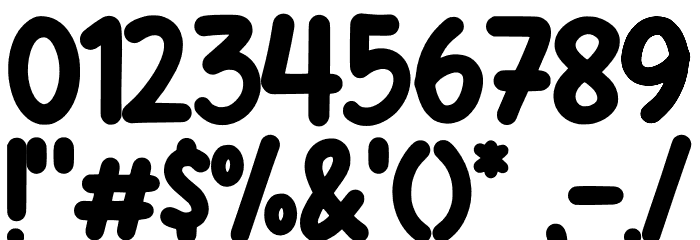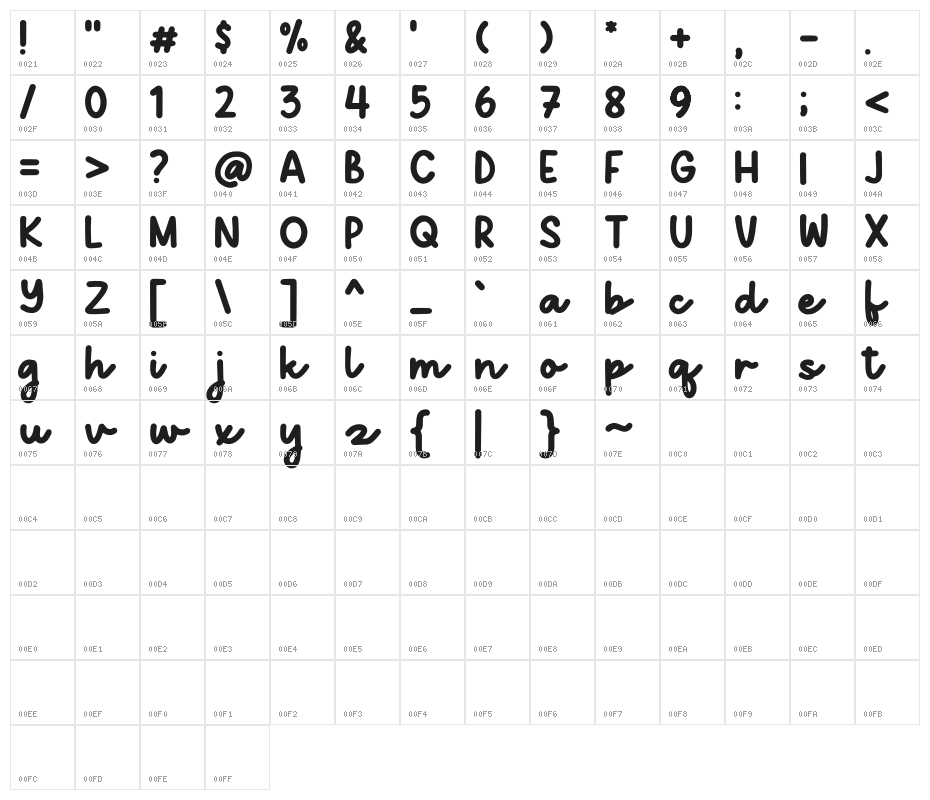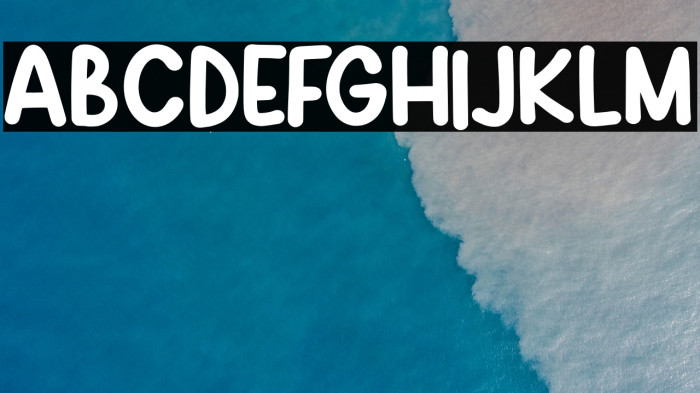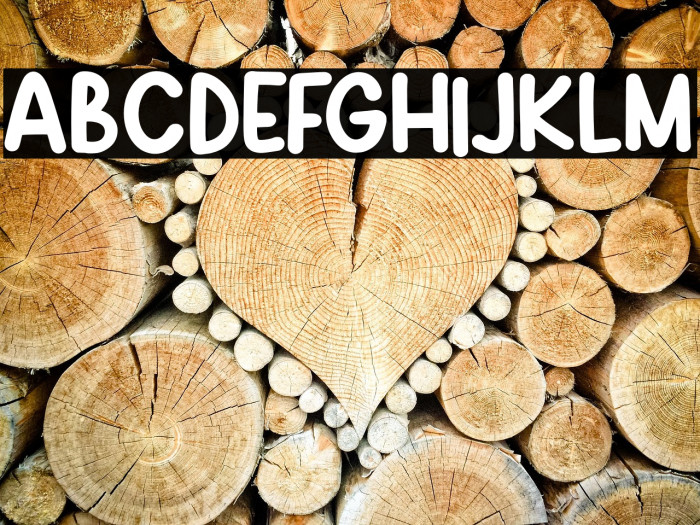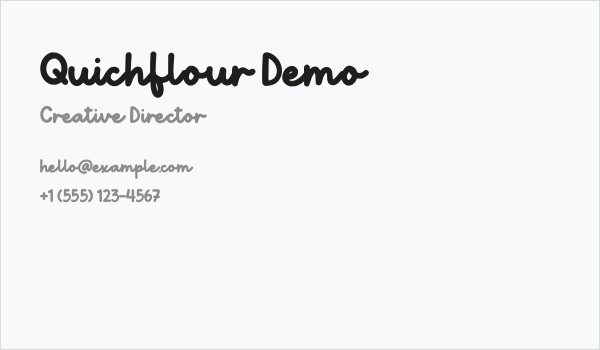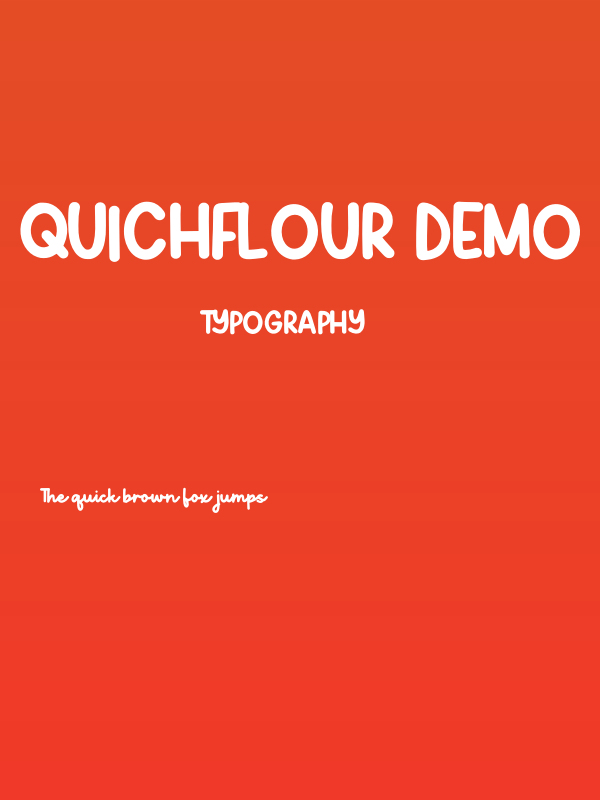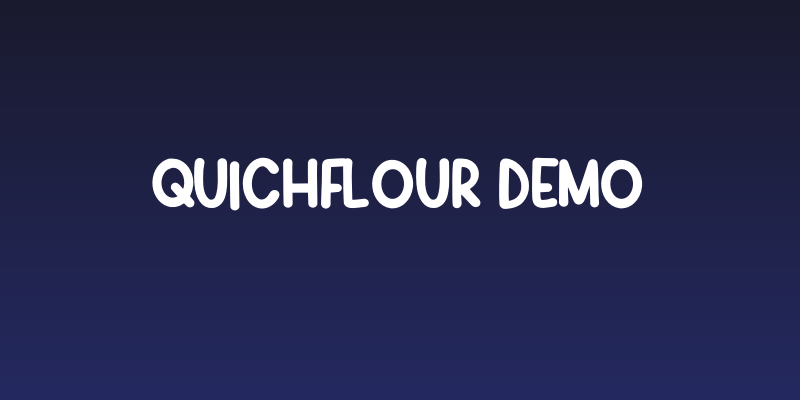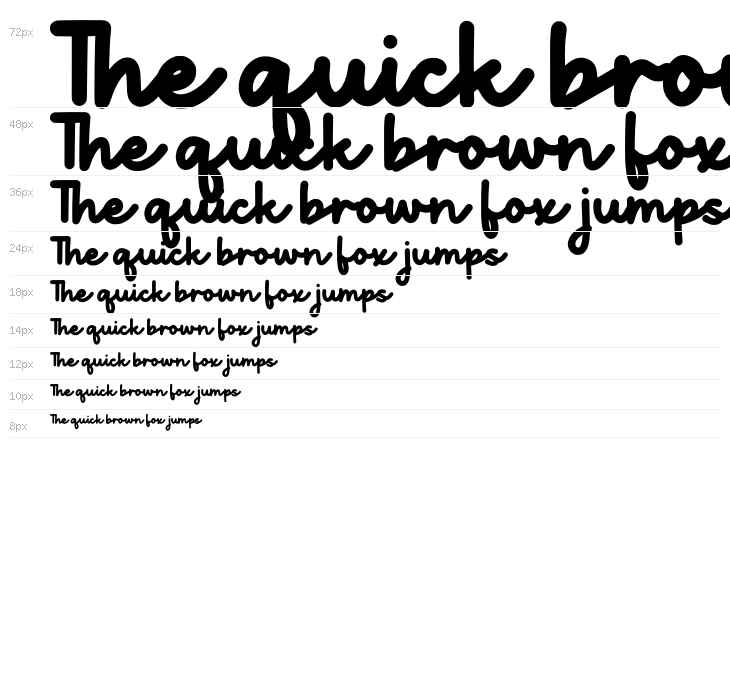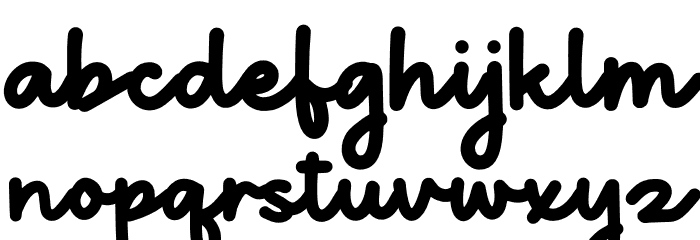
Quichflour Demo Font
Quichflour Demo Description
This font features a playful and bold handwritten style, characterized by its thick strokes and rounded edges. The uppercase letters are uniform in height, while the lowercase letters exhibit a charming, slightly irregular baseline, adding to its casual appeal. The numerals are consistent with the overall style, maintaining the same boldness and rounded forms. Special characters are creatively integrated, ensuring they match the font's lively aesthetic. This font is perfect for projects that require a friendly and approachable look, such as children's books, playful branding, or casual invitations.